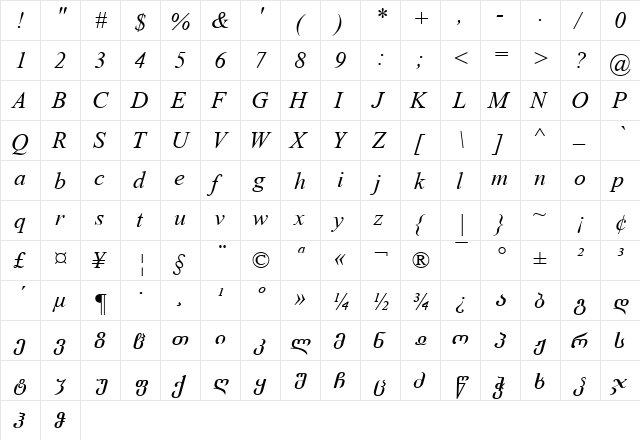
Geo_Times Italic
Design Context for Geo_Times Typeface
Geo_Times is a composed and adaptable typeface that performs quietly and consistently across a wide range of design contexts. The slanted form adds forward momentum and visual energy.
Pro Tip: Use Geo_Times for emphasis, pull quotes, and subheadings where its slanted energy can add rhythm to the layout.